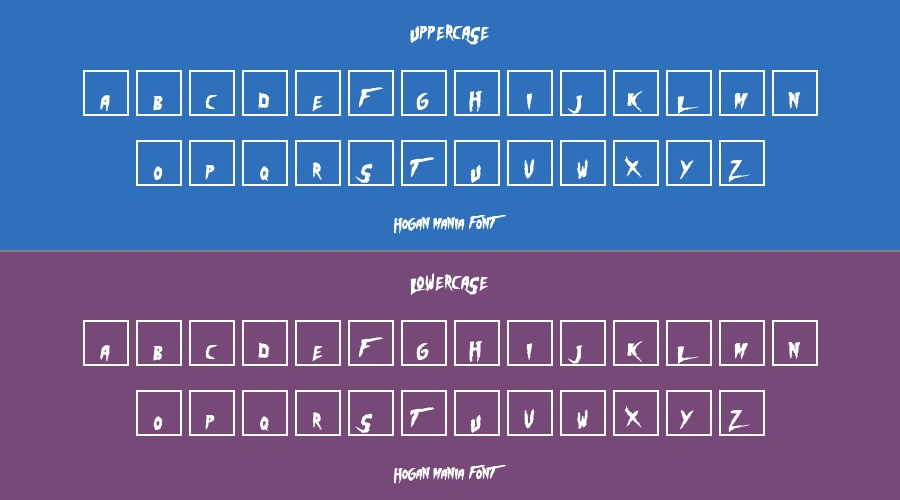
About Hogan Mania Font
Hogan Mania Font embodies typographic excellence through its masterful combination of swash extensions and refinement. Created for corporate reports, this typeface delivers exceptional flexibility and visual authority across all applications. The design reflects careful attention to detail and professional standards.
Advanced capabilities include distinctive engineered curves and versatile standard ligatures, giving designers creative control. When used in brand logos, Hogan Mania Font exhibits remarkable versatility. The harmonious balance between curve radius and generational relevance sets this typeface apart.